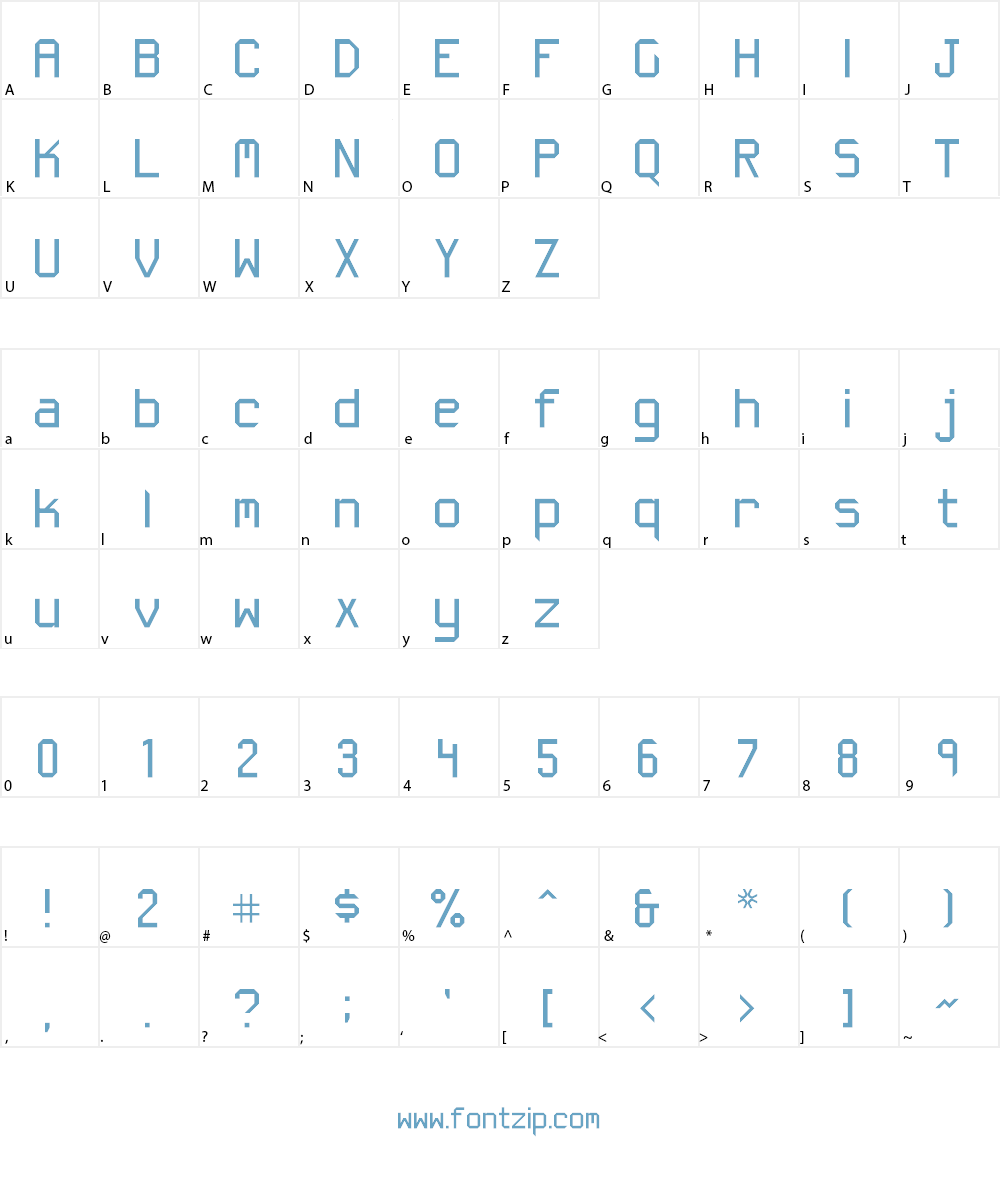
Named after the coolest district in The Urbz GCN, Skyline Beach is a high-tech typeface inspired by Russell Square and FF District.
Changes in version 1.1:
-Added Cyrillic characters